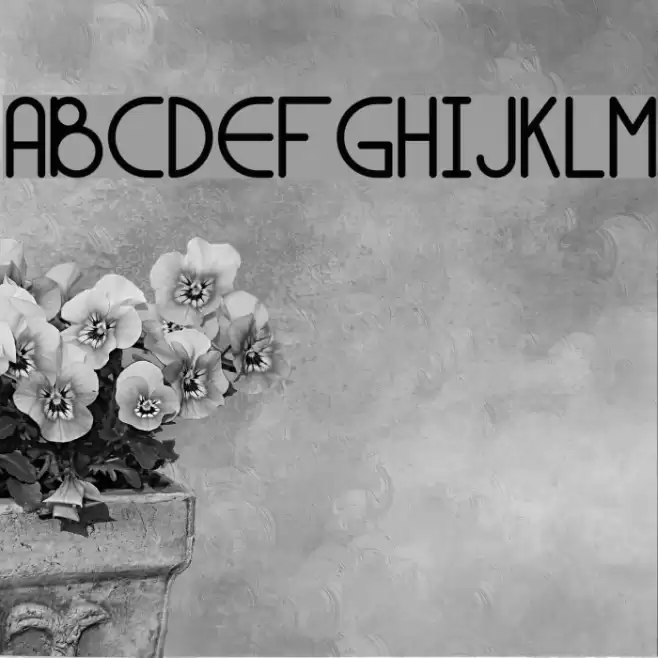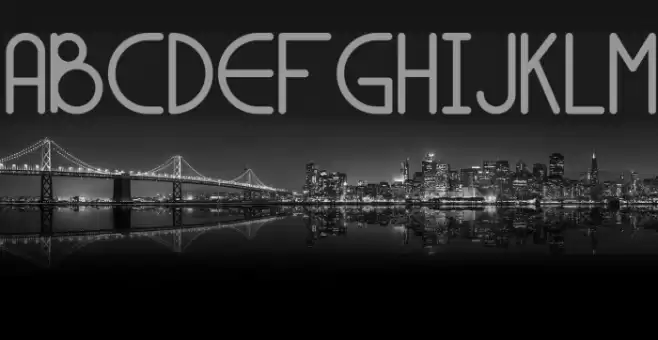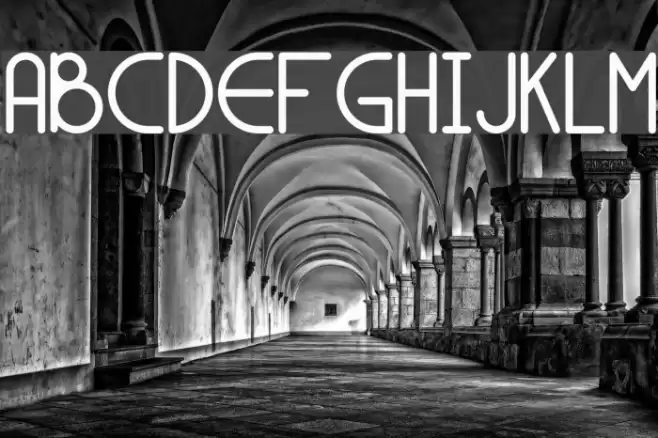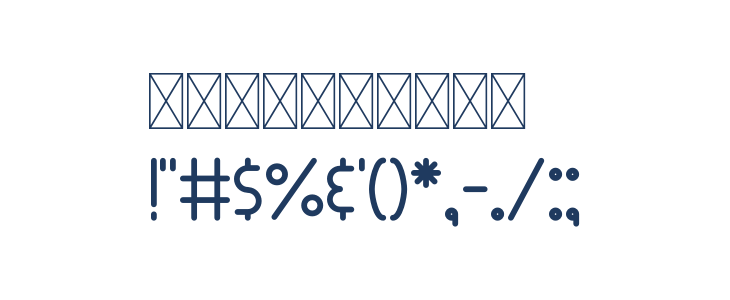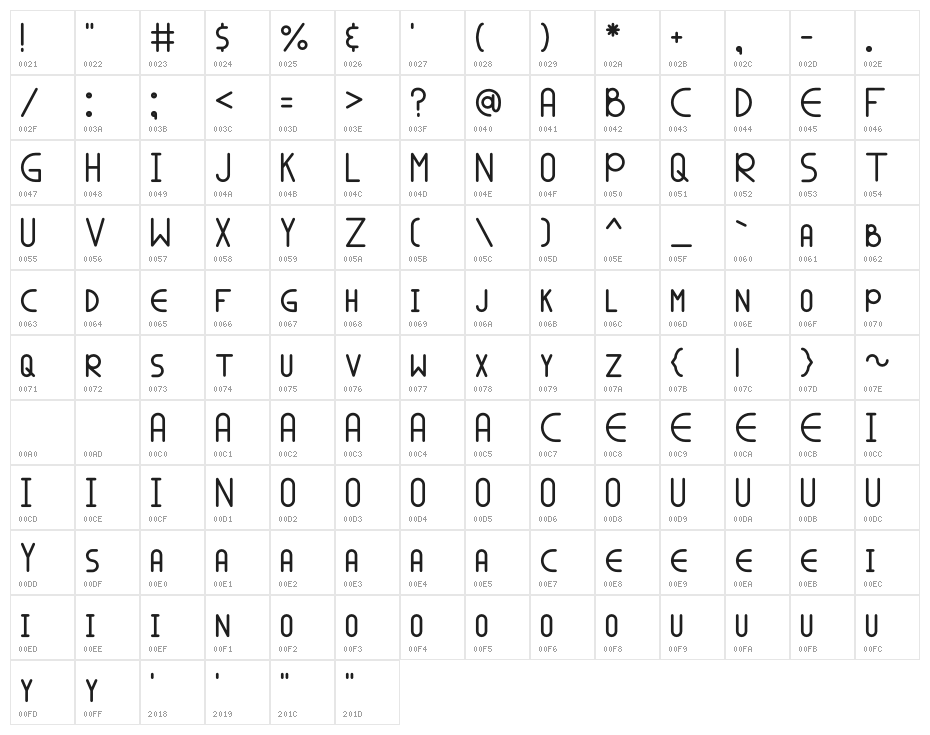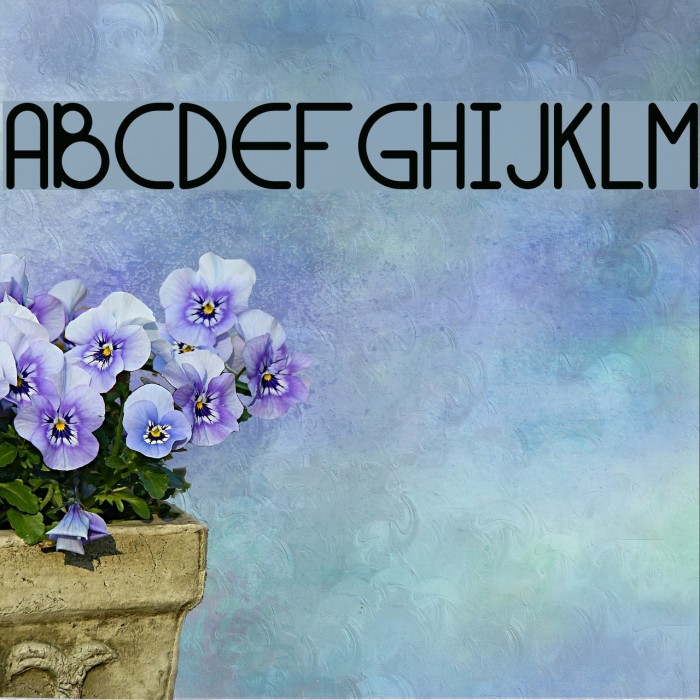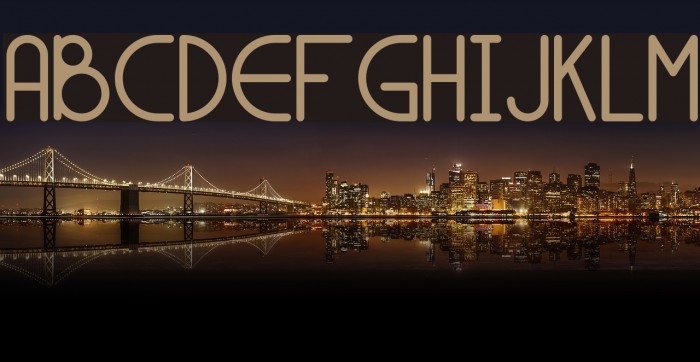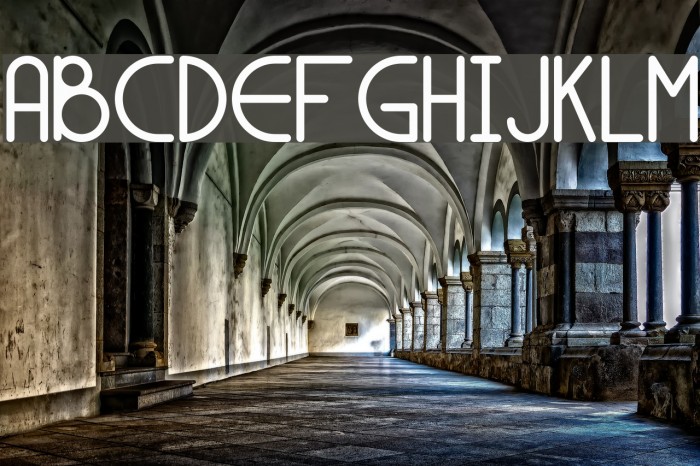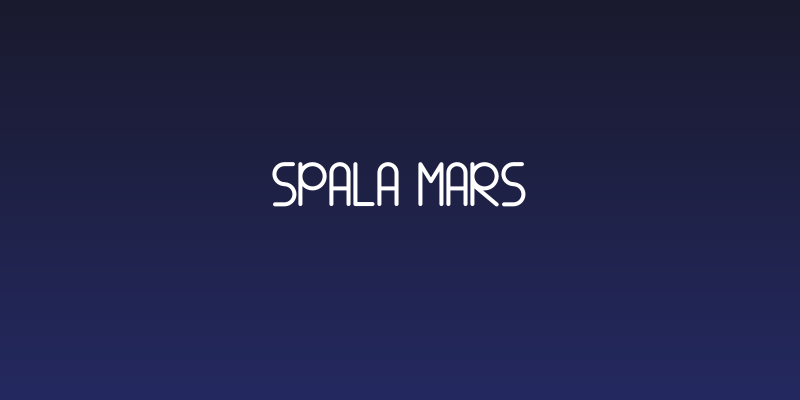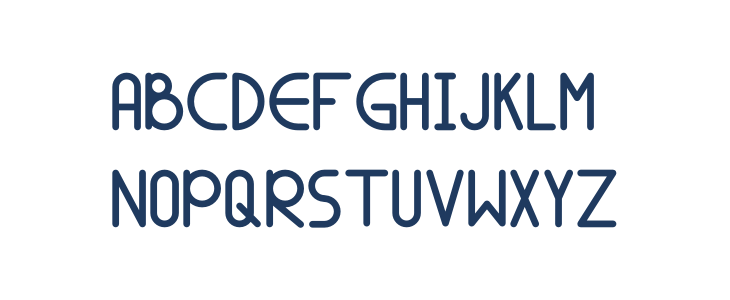
SPALA MARS Font
SPALA MARS Description
This font features a modern and geometric design with clean, rounded edges and a consistent stroke width. The uppercase letters are bold and structured, creating a strong visual impact. The lowercase letters maintain the same geometric style, offering a harmonious balance between the two cases. The numerals follow the same design principles, ensuring uniformity across all characters. Special characters are included, matching the overall aesthetic. The font's simplicity and clarity make it highly legible, suitable for various design applications.
A modern, geometric font with clean, rounded edges and consistent stroke width from Uncategorized fonts.
- Proposed Projects: Ideal for branding, signage, headlines, and digital interfaces where a modern and clean look is desired.
- Use Case: Headlines, Logos, Signage